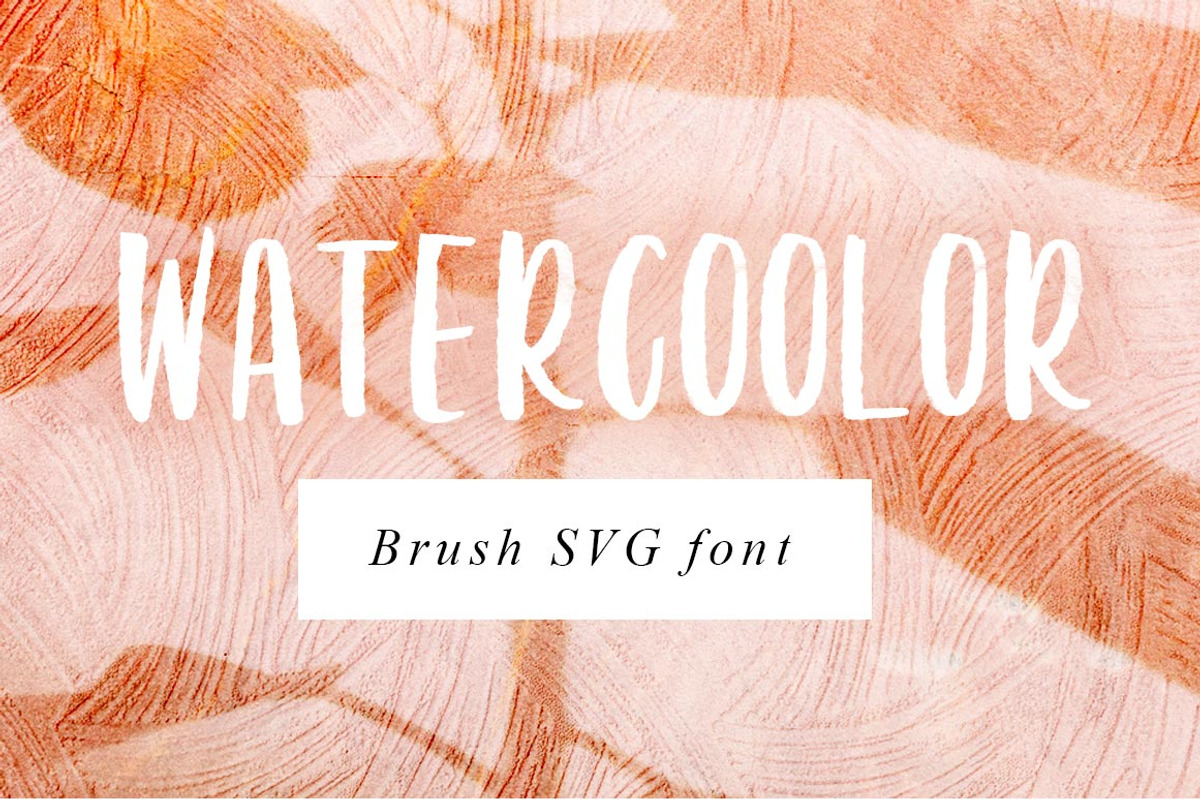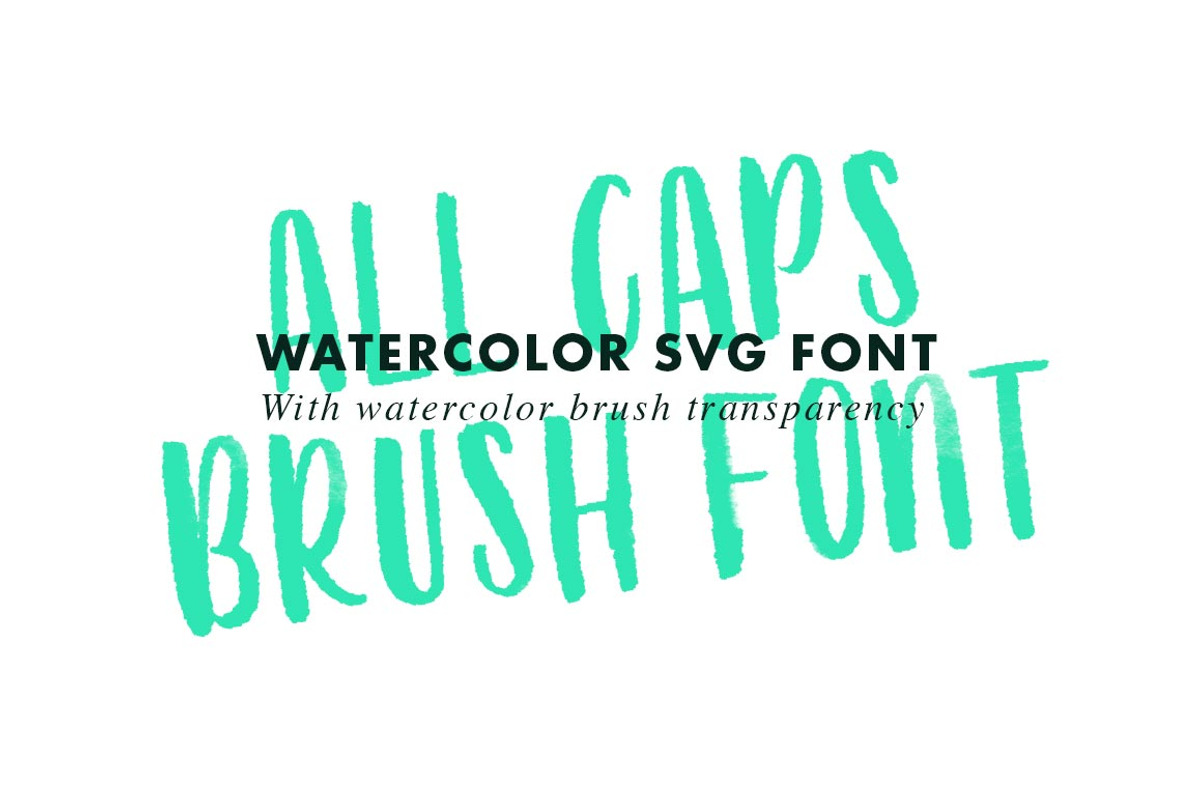
Watercolor SVG Brush Font
Watercolor hand-lettered brush font. A bold, condensed font, with brushy imperfections and watercolour opacity.
SVG fonts or color fonts are the latest trends that allow us to add detail and texture to our typographic designs. Watercoolor SVG keeps all the beauty of the real painted watercolor strokes as a transparent texture, so it gives you a proper hand-painted effect, without you having to do anything (or go near paint). SVG fonts work just like normal fonts, but allow so much more customization and look hyper-real.
Special characters like ¨ ˜ ´ ˆ ` ˚ ˘ÇÑ make this SVG font compatible with English, Català, French, Italian, Spanish, Portuguese, German, Swedish, Norwegian, Danish, Dutch, Finnish, Indonesian, Malay, Hungarian, Polish, Croatian, Turkish, Romanian, Czech, Latvian, Lithuanian, Slovak, Slovenian.